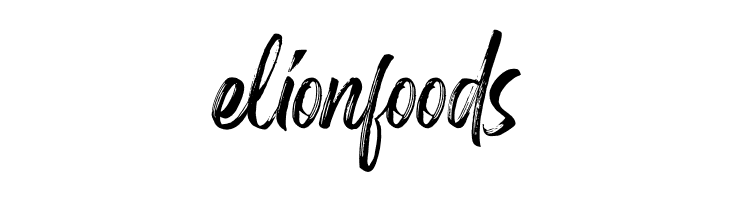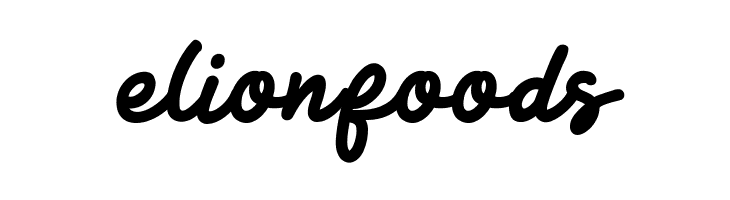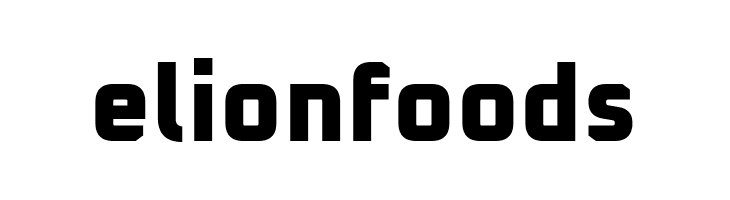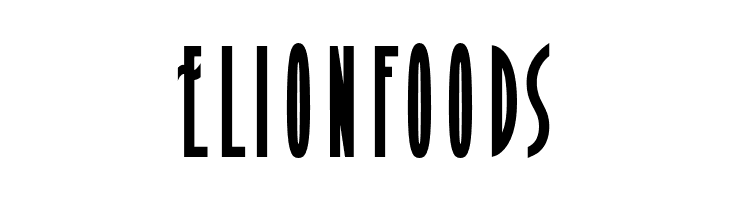
A bold, brush-style font with dynamic, handwritten flair.
An elegant script font with flowing, connected letters and a classic, sophisticated style.
A bold, flowing script font with smooth, connected strokes and a lively, elegant style.
A bold, expressive script font with a handwritten, dynamic style.
A bold, rounded font with a playful and friendly style.
A bold, geometric font with a modern and impactful design.
A bold, geometric typeface perfect for impactful headlines.
A bold, modern typeface with tall, narrow letterforms and a geometric structure.
A clean, modern font with elegant, slender characters and consistent stroke width.
A bold, modern font with geometric and abstract elements, perfect for striking designs.